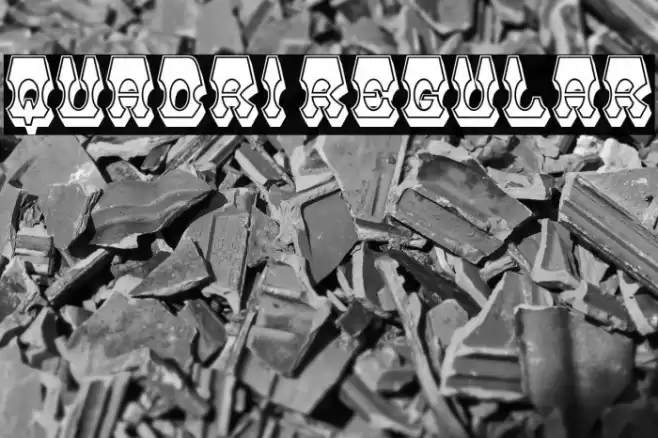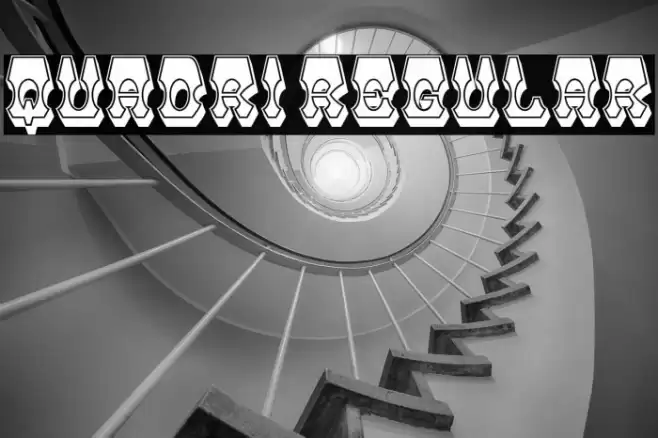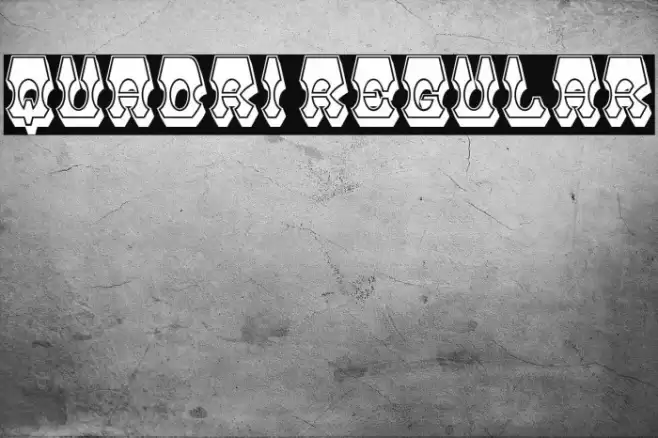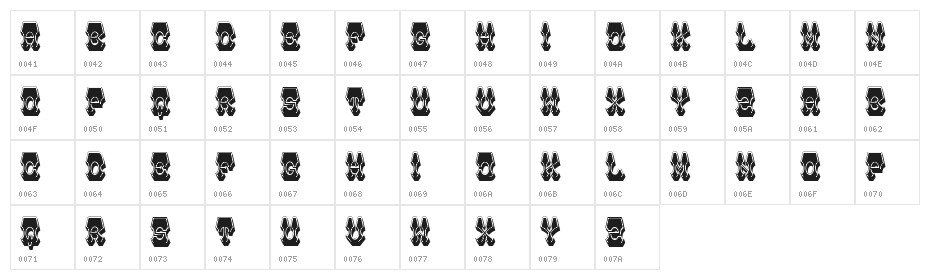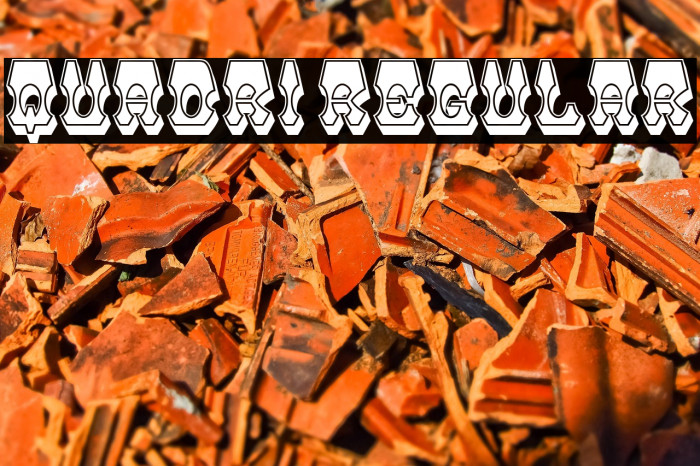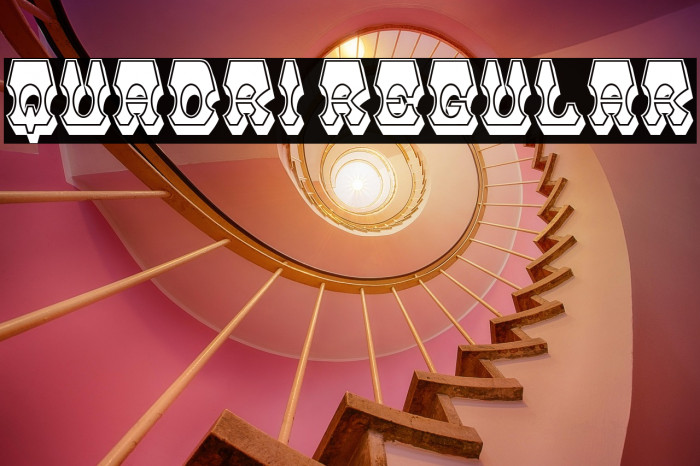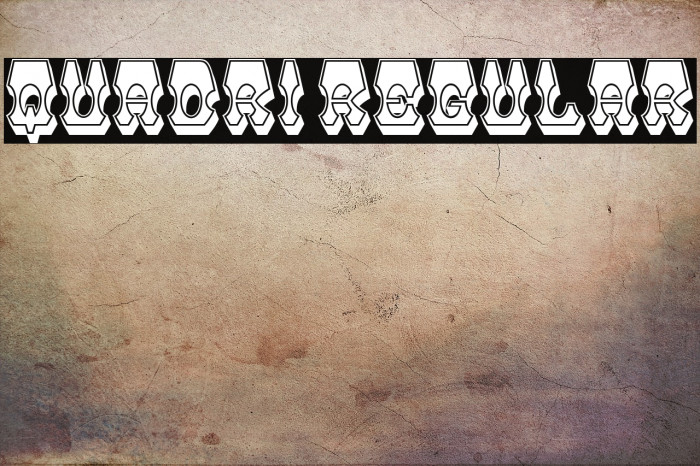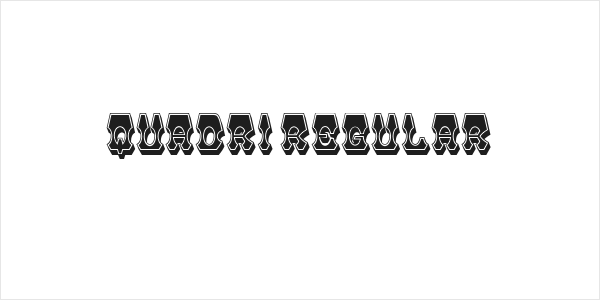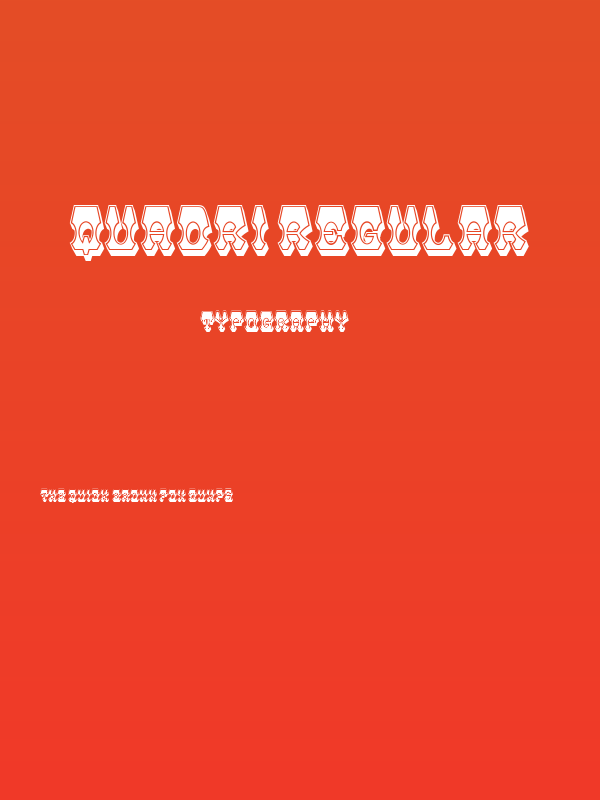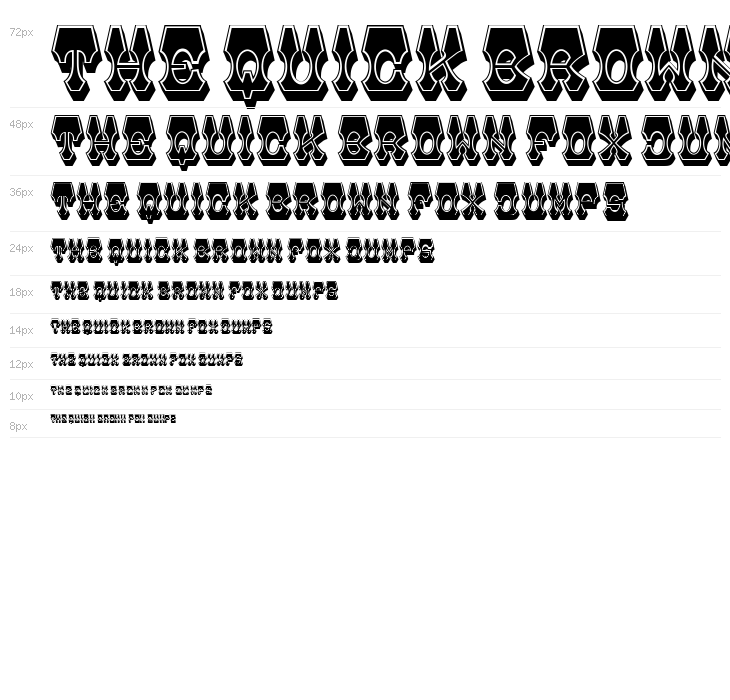
Quadri Regular Font
Quadri Regular Description
This font features a bold, geometric design with a three-dimensional effect. Each character is crafted with a thick outline and a shadow that gives it a striking, layered appearance. The letters are composed of angular shapes with sharp edges, creating a futuristic and industrial look. The unique cutouts within the characters add an extra level of complexity and visual interest. This font is highly decorative, making it ideal for eye-catching designs. The uppercase letters are consistent in height, and the overall style is bold and impactful.
A bold, geometric font with a 3D effect and angular design from Uncategorized fonts.
- Proposed Projects: Ideal for poster designs, album covers, video game titles, and any project requiring a bold, futuristic aesthetic.
- Overall Style: Futuristic, Industrial